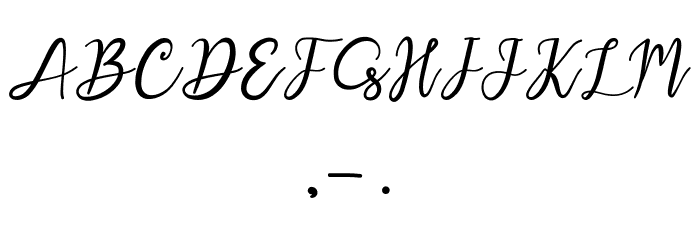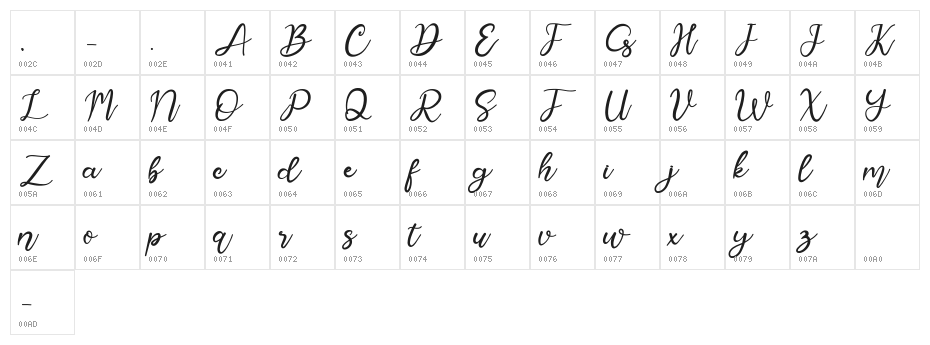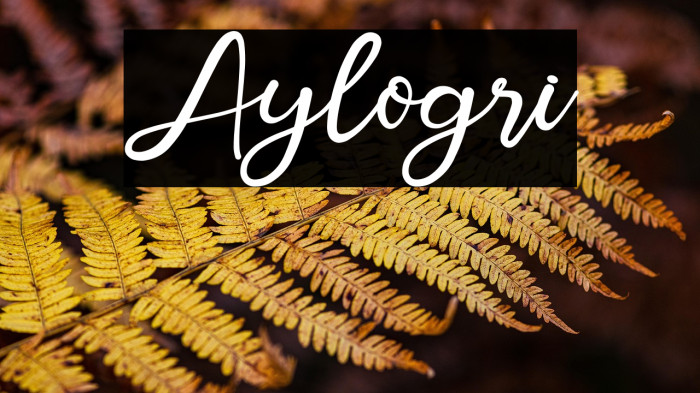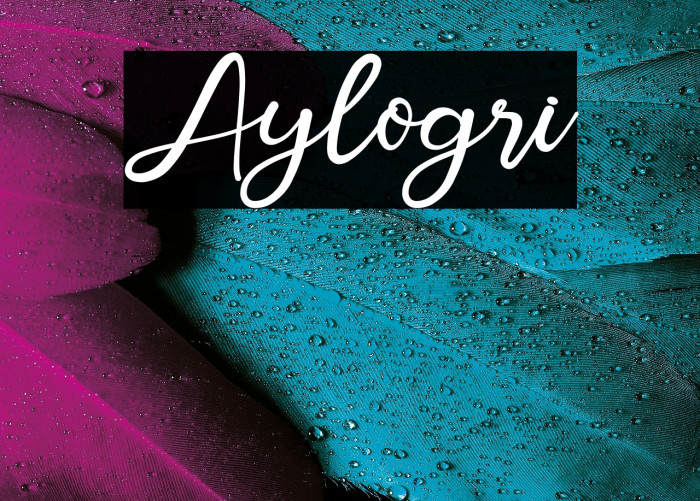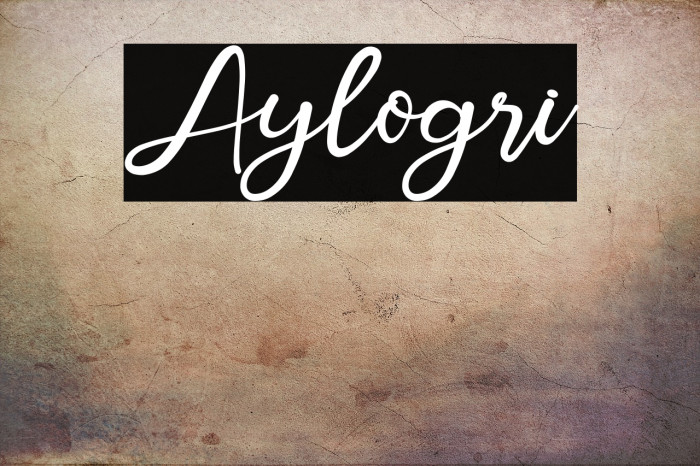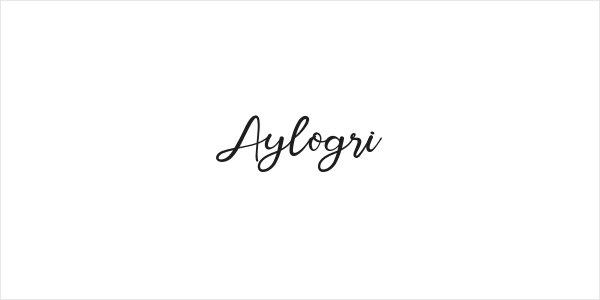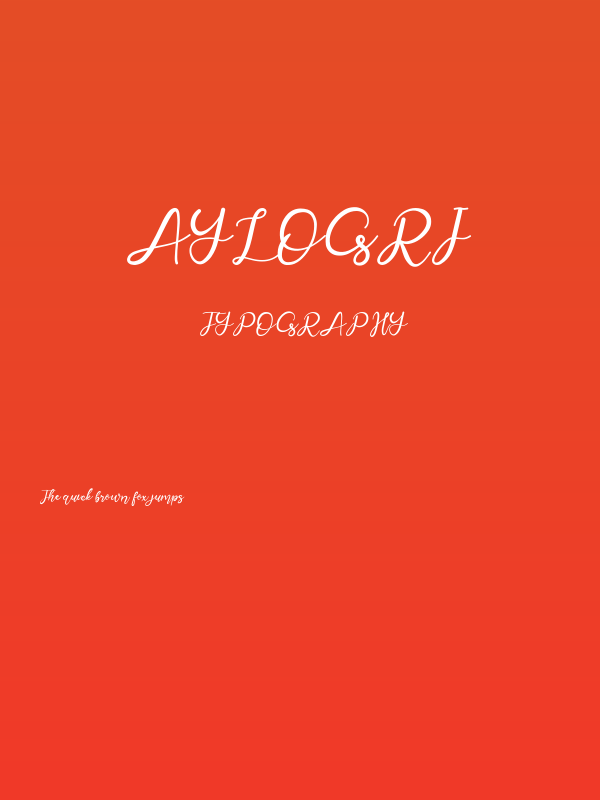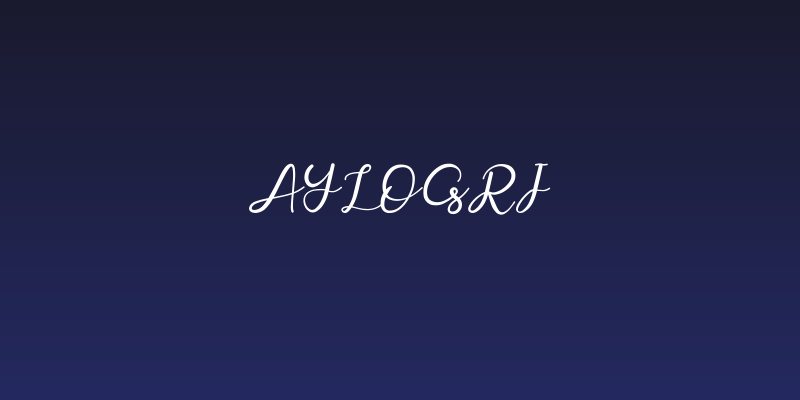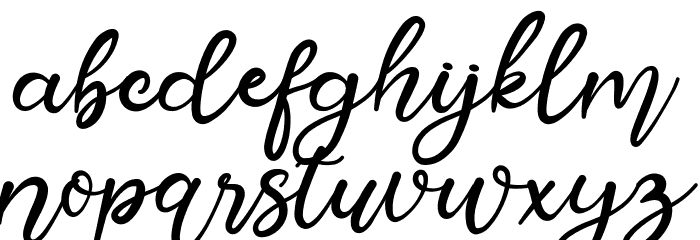
Aylogri Font
Aylogri Description
This font features an elegant and flowing script style, characterized by its smooth, cursive lines and graceful curves. The uppercase letters are slightly more restrained, with a classic calligraphic influence, while the lowercase letters exhibit a more playful and dynamic flair. The strokes are consistent in weight, providing a harmonious and balanced appearance. The font maintains a sense of sophistication and charm, making it suitable for a variety of creative applications. Its design is both timeless and versatile, appealing to those who appreciate the beauty of handwritten scripts.
| Proposed Projects | Ideal for wedding invitations, greeting cards, branding, and elegant logo designs. |